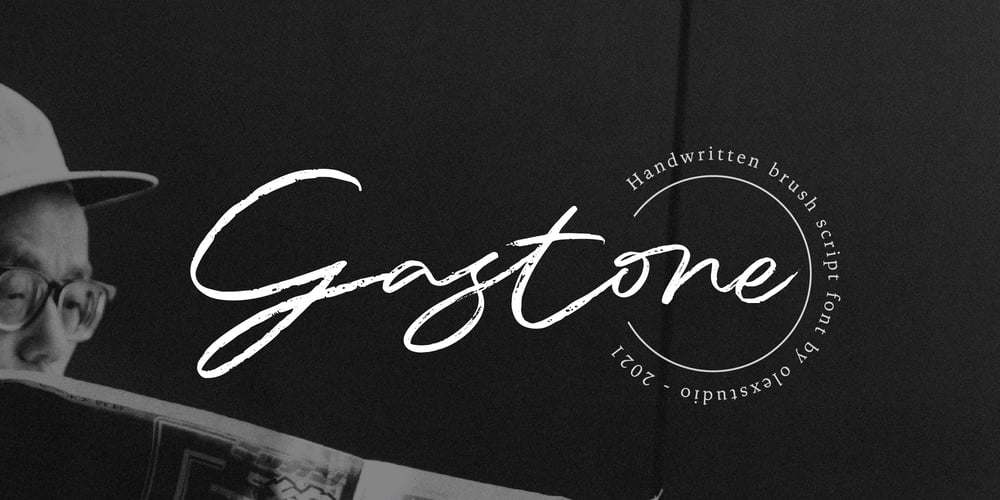
Gastone Font Family was designed by Firman Syah and published by Olexstudio. Gastone contains 1 styles and family package options. GASTONE – Handwritten Brush Script Font will look gorgeous on all your designs, invitation, poster design, book design, branding materials, logo’s, t-shirt and all project design other.GASTONE – Handwritten Font contains standard characters, Lowercase, alternates, Uppercase, numbers, punctuation, ligatures and international glyphs.